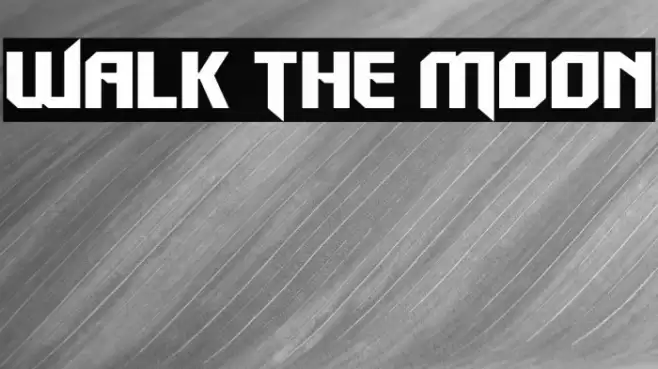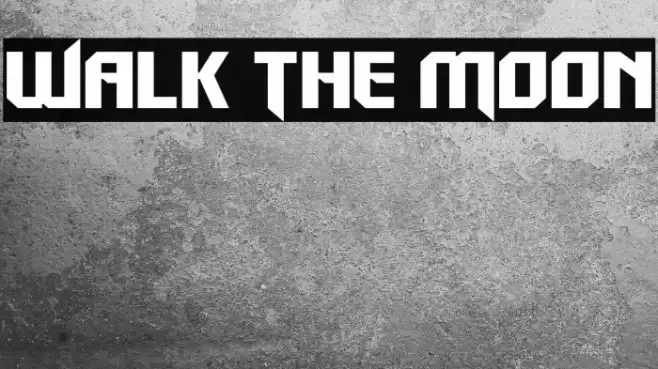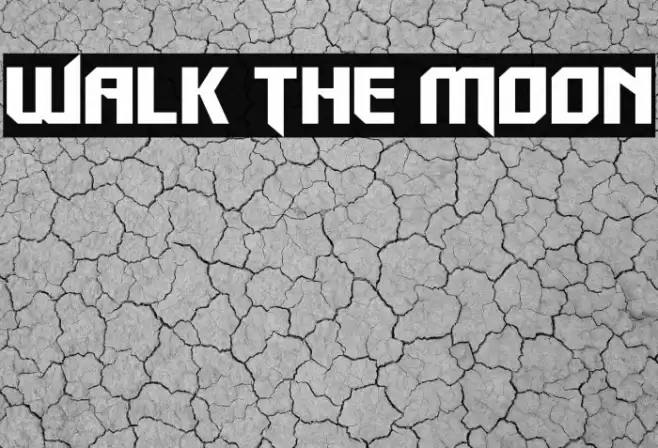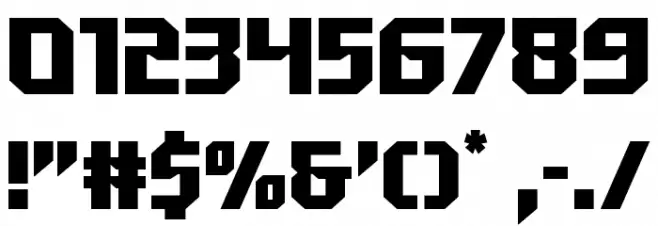
Walk The Moon Font
Walk The Moon Description
This font features a bold, geometric design with sharp angles and a futuristic aesthetic. The uppercase letters are uniform in height, creating a cohesive and structured appearance. The characters have a blocky, angular style that gives them a strong presence, making them ideal for impactful headlines or titles. The numbers and special characters maintain the same geometric consistency, ensuring a seamless look across all text. The font's unique style is both modern and edgy, suitable for projects that require a bold statement.
A bold, geometric font with sharp angles and a futuristic look from Regular fonts.
- Proposed Projects: Ideal for branding, posters, album covers, and video game titles.